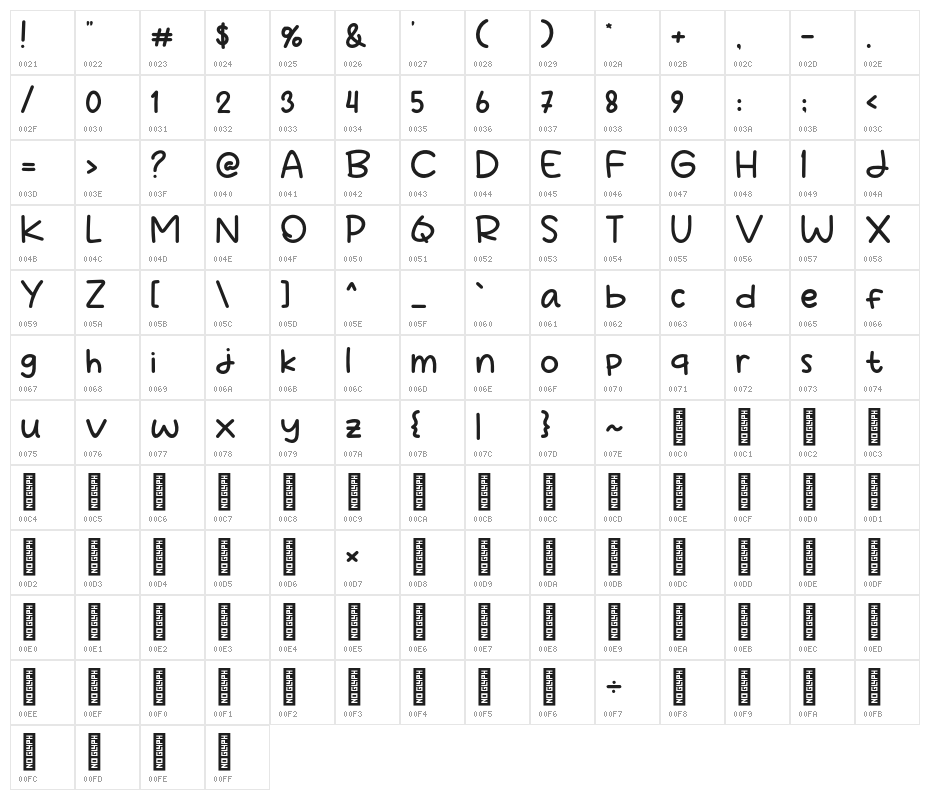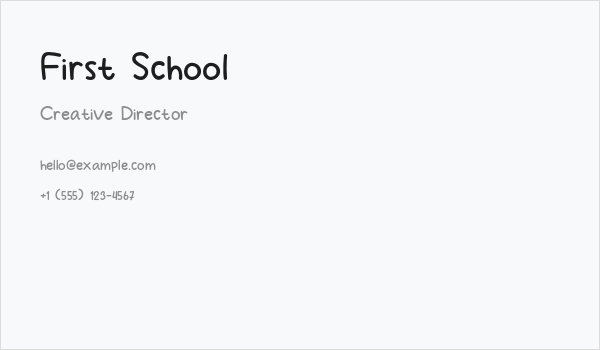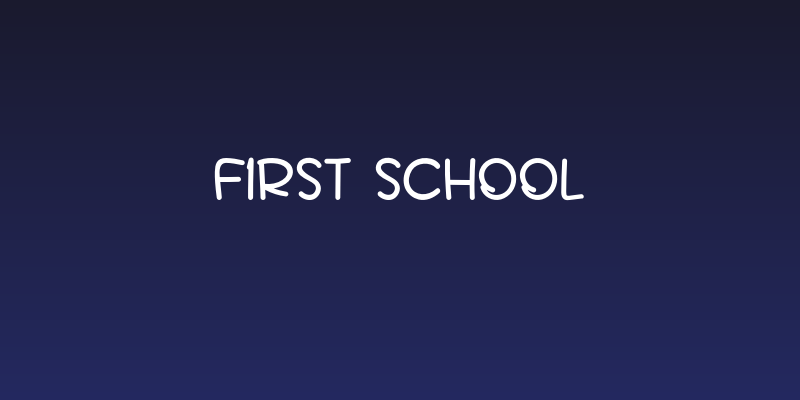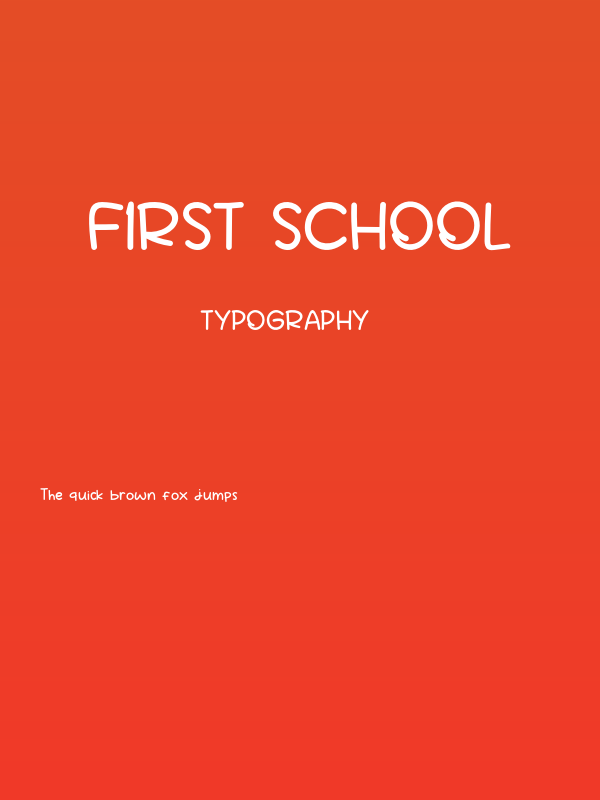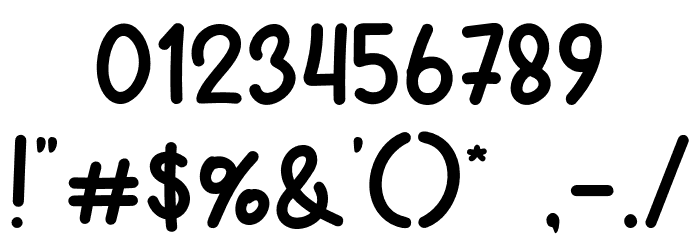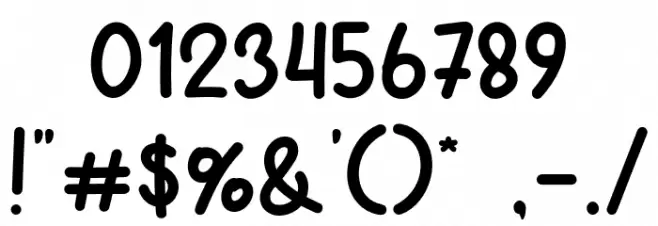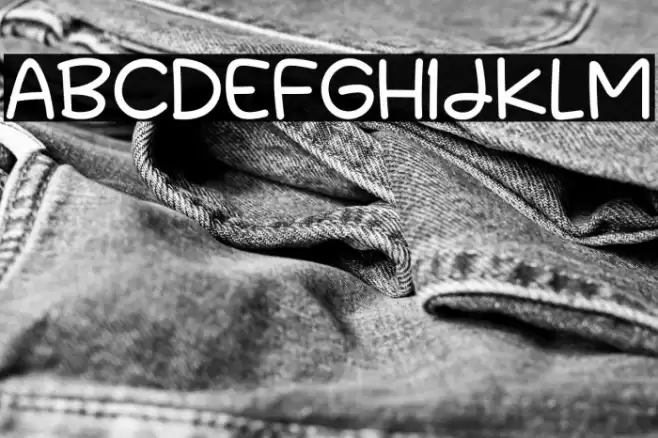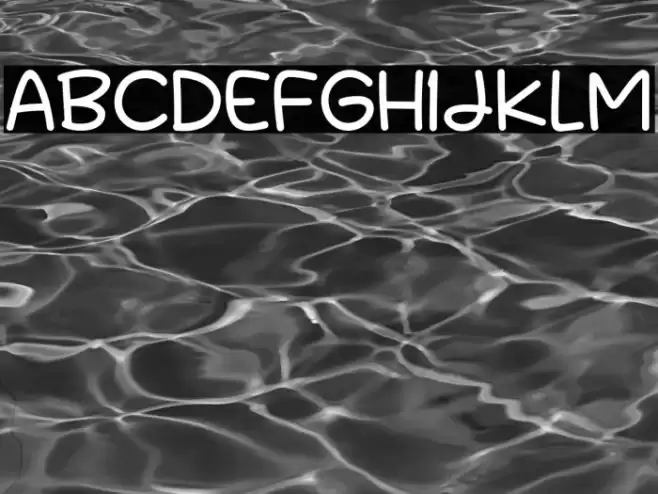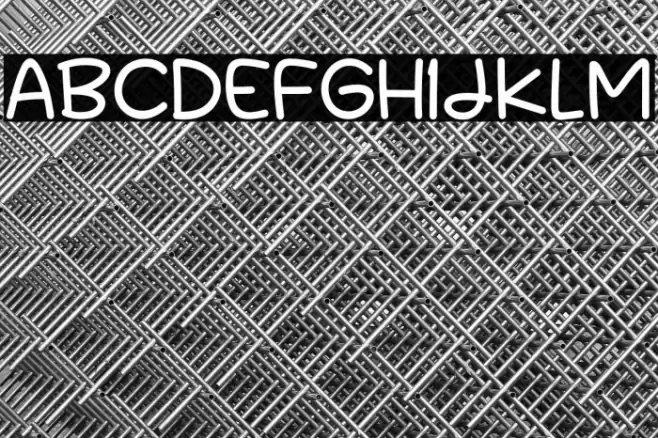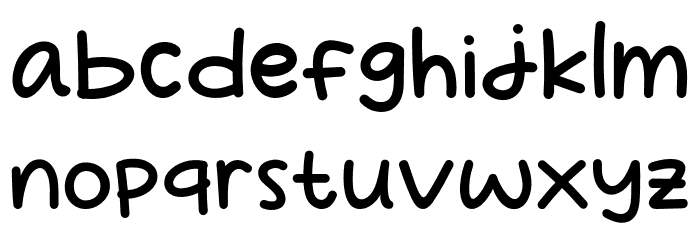
First School Font
First School Description
This playful and rounded font exudes a youthful and friendly vibe, reminiscent of handwriting often seen in educational settings. The characters are bold and slightly irregular, giving them a hand-drawn appearance that is both approachable and informal. The strokes are consistent in width, contributing to a uniform look across all characters. The font maintains a balance between readability and personality, making it suitable for a variety of informal applications. Its whimsical style is particularly appealing for projects aimed at children or those seeking a lighthearted aesthetic.
| Proposed Projects | Ideal for children's books, educational materials, playful branding, and informal invitations. |